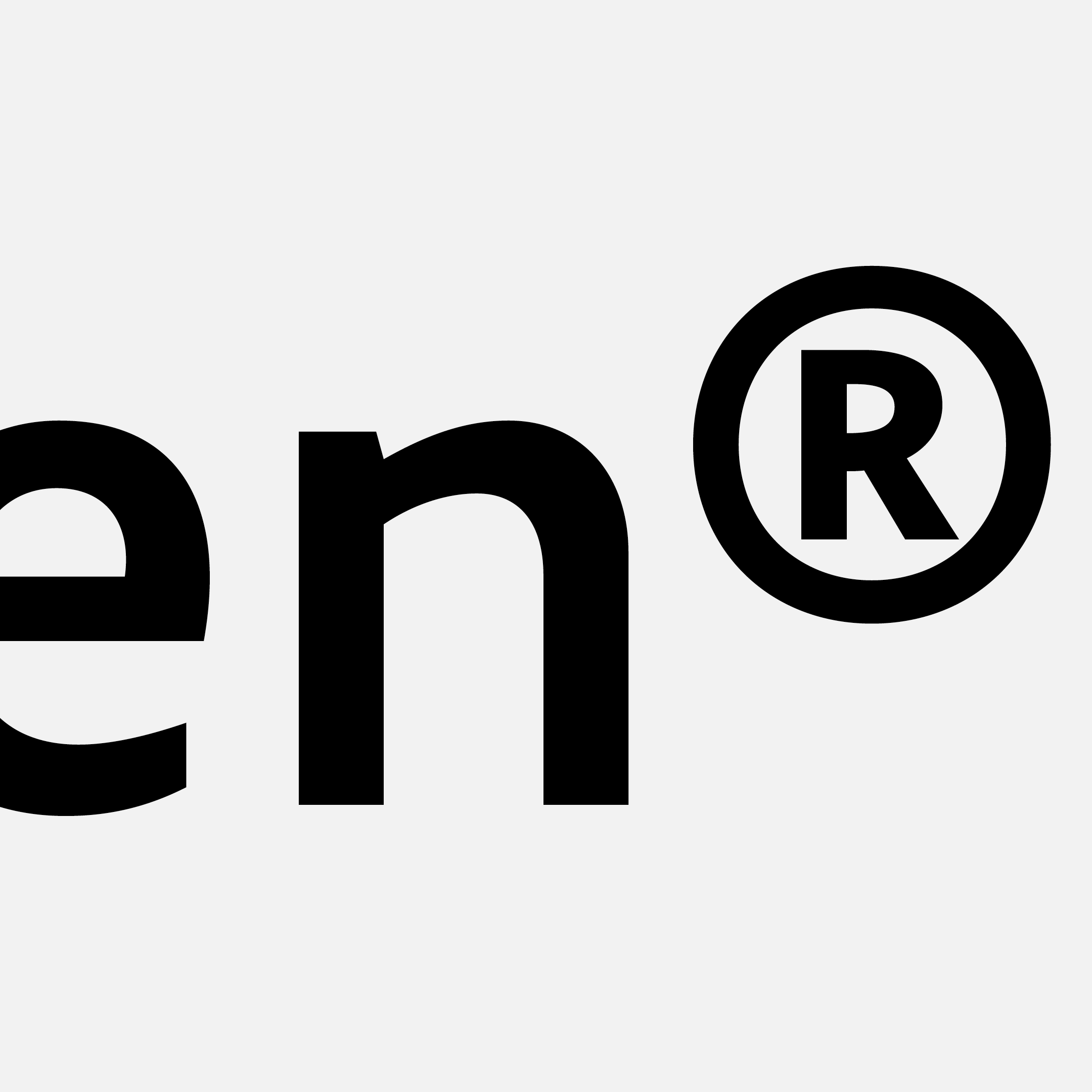
Comenia Sans
As part of the unique cross-foundry Comenia project, the Comenia Sans typeface was created as an alternative to the inappropriate use of system fonts at all levels and in all areas of education. Its humanist open design, clearly distinguishable glyphs, and extensive character set make it perfectly suited for typesetting longer texts. The Condensed styles are ideal complements for headlines and shorter paragraphs. If you are looking for a suitable typeface to pair with it, visit Storm Type Foundry, which has created a beautiful Comenia Serif text version.